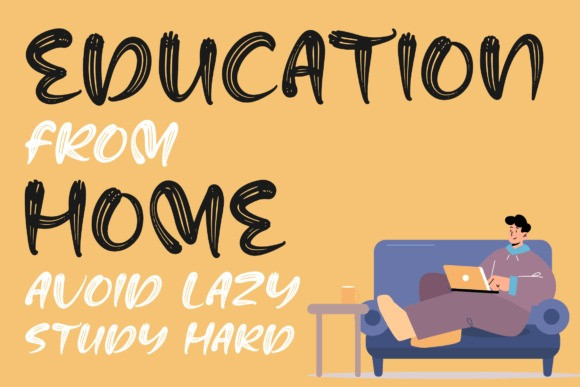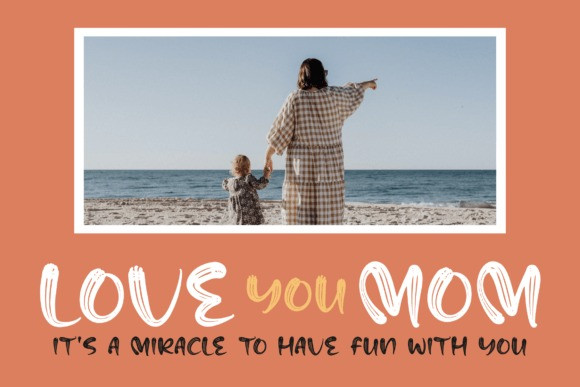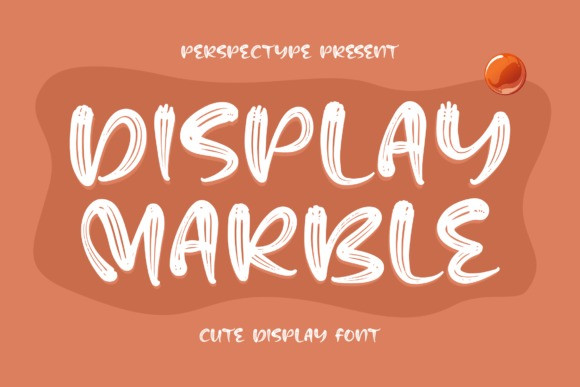
Display Marble Font
Display Marble Brush Font is a fun and cool script display font. Masterfully designed to become a true favorite, this font has the potential to bring each of your creative ideas to the highest level!